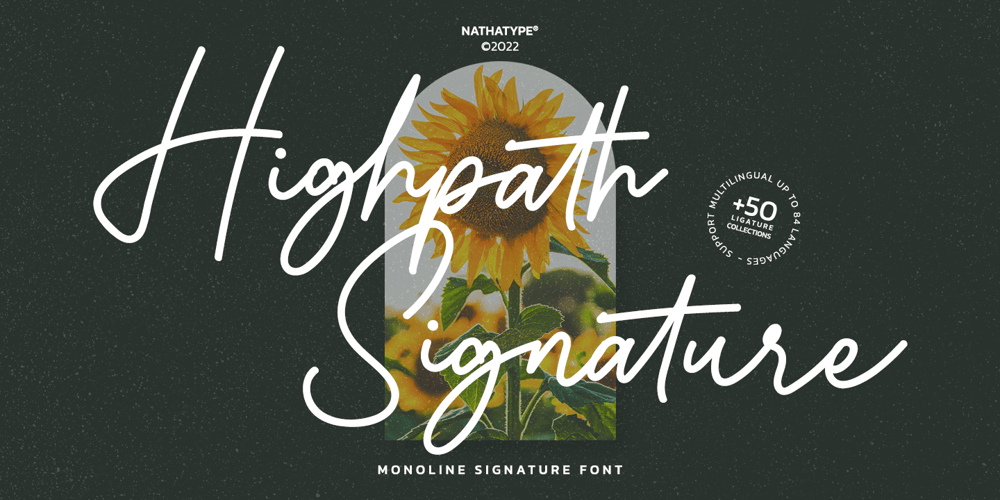
Highpath Signature Font Family was designed by Donis Miftahudin and published by Nathatype. Highpath Signature contains 1 styles and family package options. Are you looking for a signature font? Wanna make your branding spark? Do you sometimes have an appetite for a bit more wholesome typography? We give you the best solution.Highpath Signature- A Signature FontHighpath Signature is a lovely signature font designed with classic vibes. This font support multi languages to make your brand globally acceptable. It’s a font with simple shapes, making it very suitable to be used on any purposes. A real head-turner for your presentation, designs, branding, quotes, invitation, website illustrations, and much more.Features: Ligatures Stylistic Sets PUA Encoded Numerals and Punctuation Thank you for purchasing premium fonts from Natha Studio. Happy Designing! If you have any questions, please feel free to contact us.